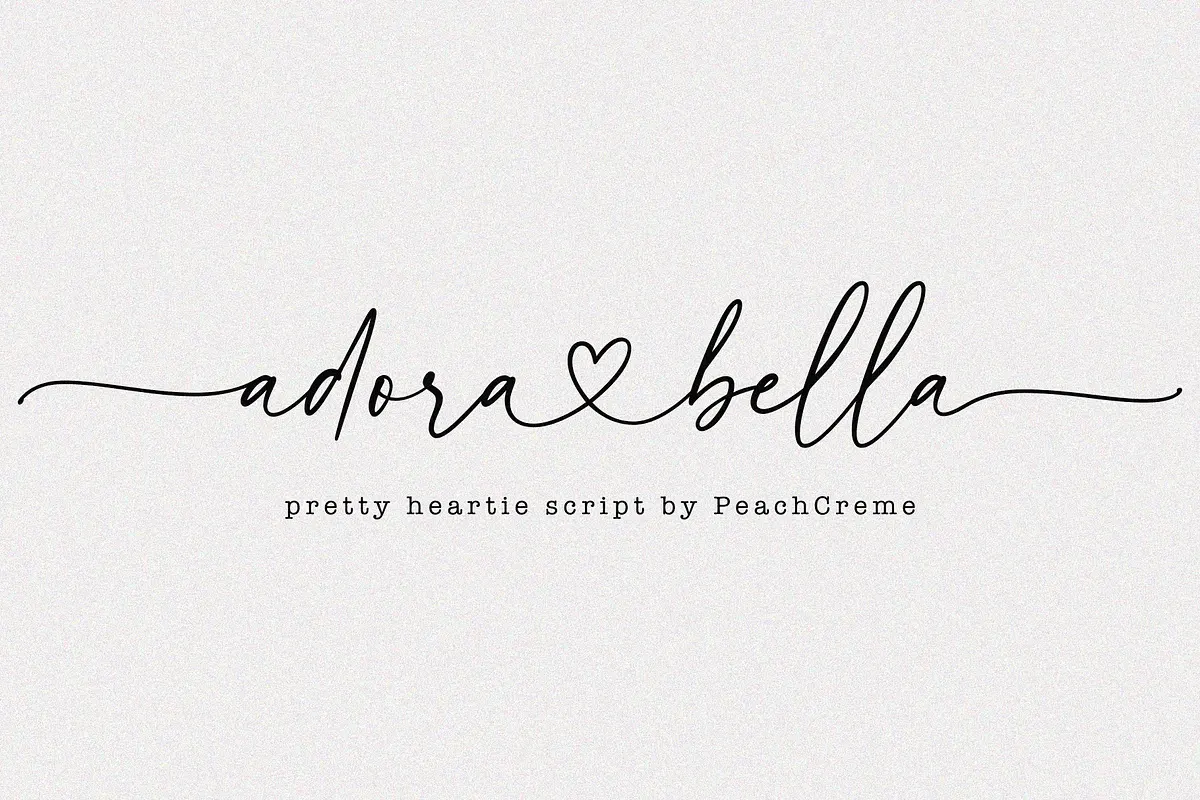
You must purchase this font for commercial use. However, you can download Adora Bella // Heart Script Font Free Download for testing purposes. Adora Bella is a beautiful, romantic script font that combines delicate, flowing strokes with heart-shaped flourishes. Perfect for wedding invitations, greeting cards, logos, branding, and any design project that requires a personal, affectionate touch.
The elegant, hand-lettered style of Adora Bella adds sophistication and warmth to your typography, making it ideal for projects that celebrate love and elegance. Whether you're crafting a romantic design, creating a luxurious brand identity, or adding a heartfelt touch to an event invitation, this font will bring beauty and grace to your work.